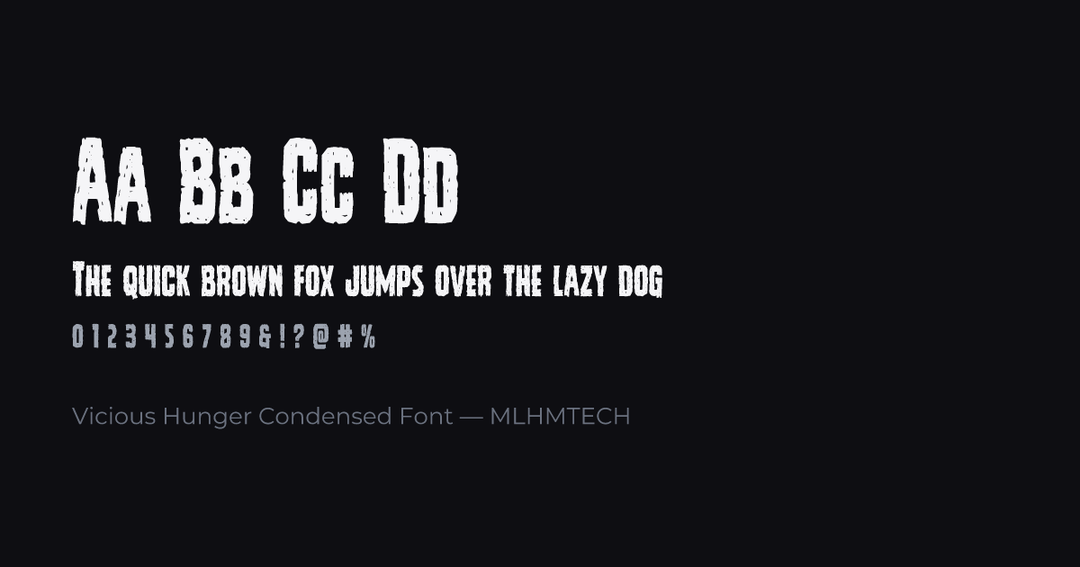
Vicious Hunger Condensed Font
Vicious Hunger Condensed is a bold, condensed display font with a grunge, horror-inspired edge. Ideal for titles, posters, and branding that need a menacing impact.
Vicious Hunger Condensed is a high-impact display font that commands attention. Its condensed letterforms and sharp edges evoke a sense of urgency and menace, making it perfect for horror movie posters, metal band logos, or any design that needs a dark, aggressive tone.
Whether you're creating a gritty title sequence, a vintage-style poster, or a bold brand identity, Vicious Hunger Condensed adds a raw, visceral energy that sets your work apart. Download it now and unleash its power.